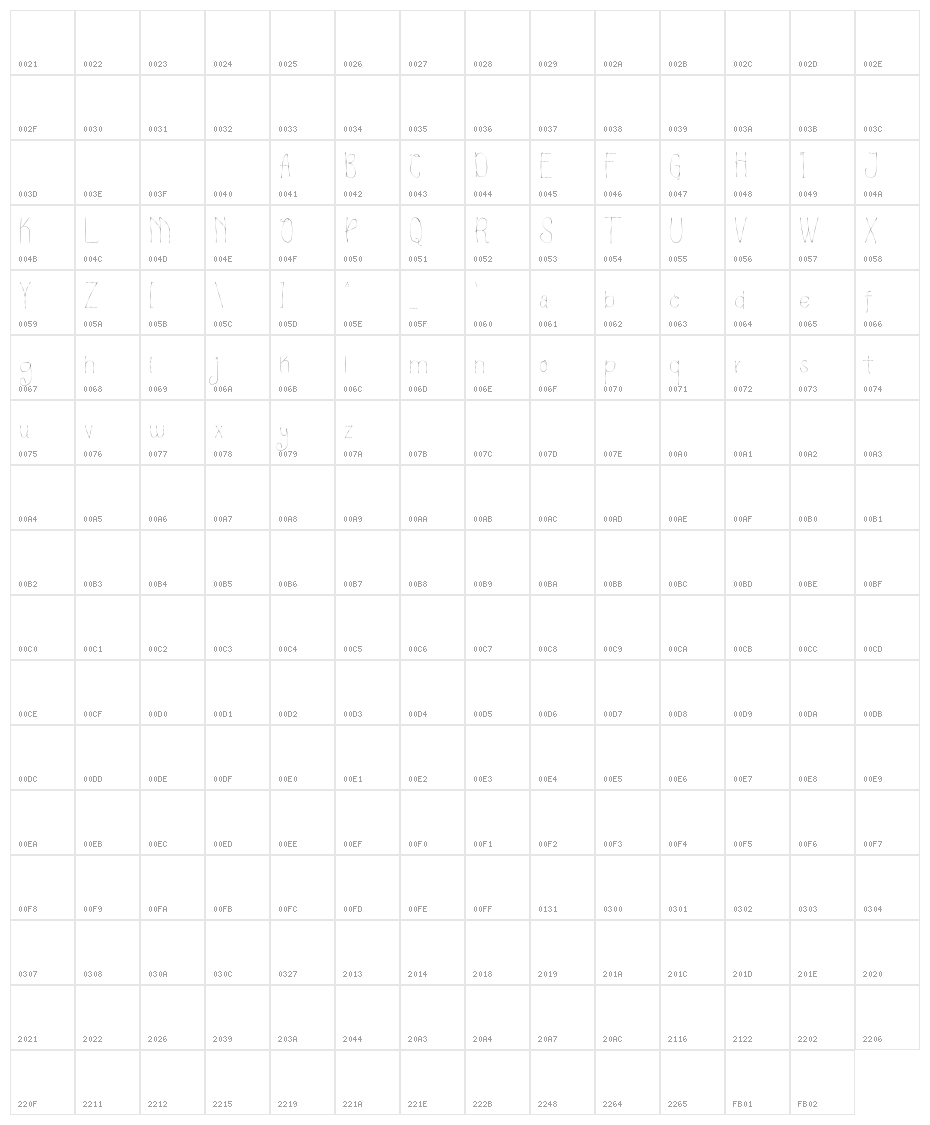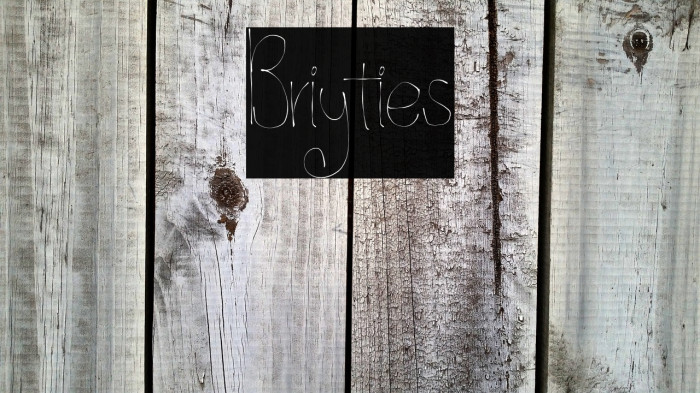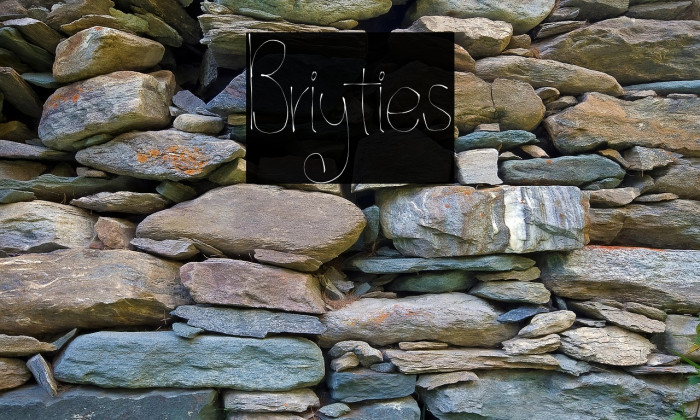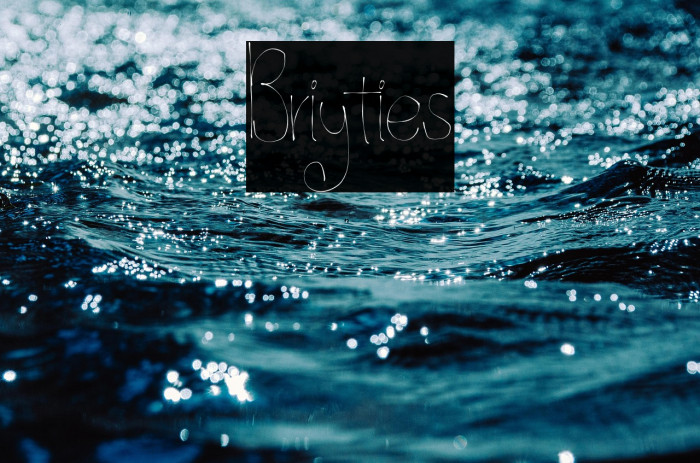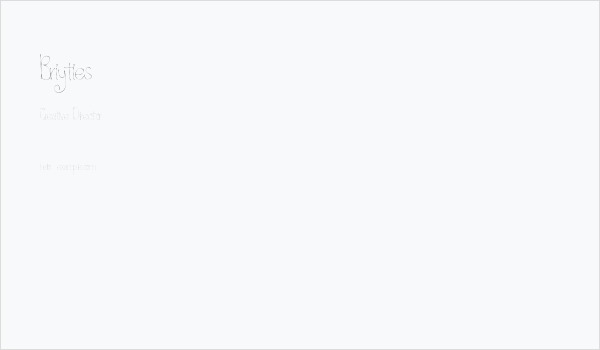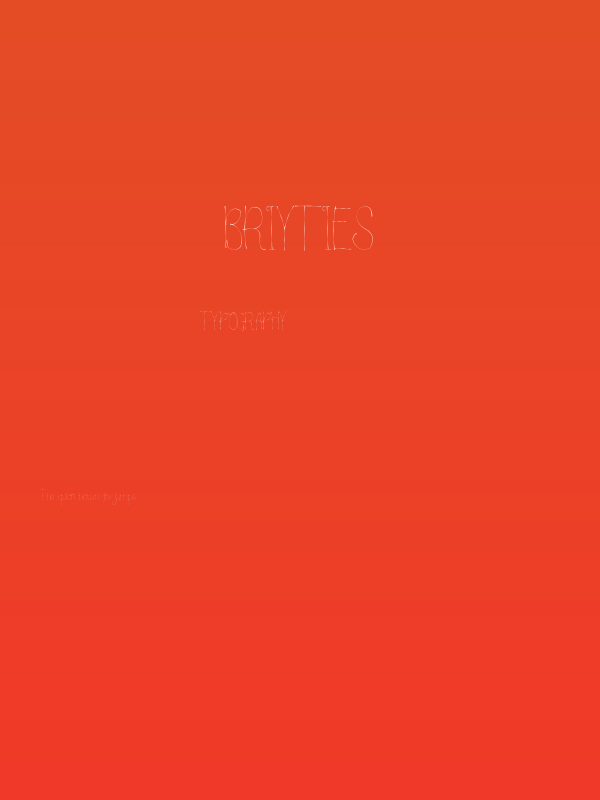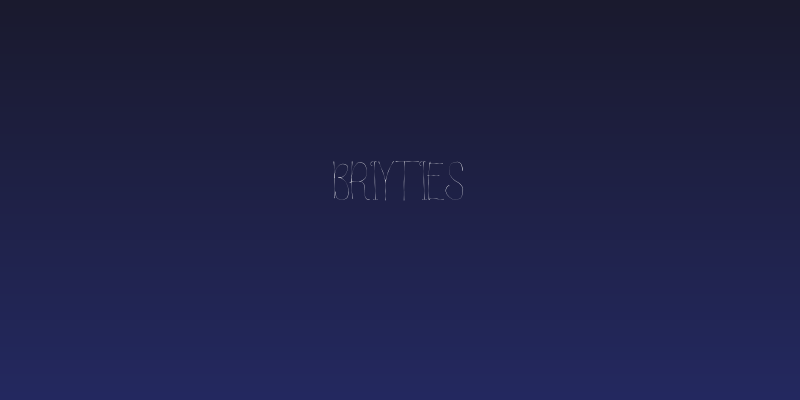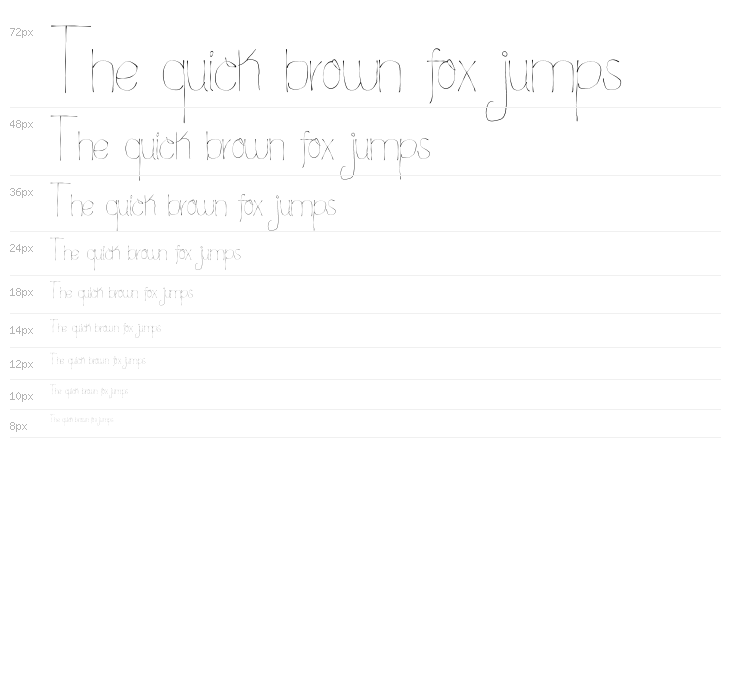
Briyties Font
Briyties Description
This font features a delicate and airy design with thin, elongated strokes that give it an elegant and sophisticated appearance. The characters are tall and narrow, with a slight whimsical touch, making it feel both modern and artistic. The uppercase letters maintain a consistent height, while the lowercase letters have a playful, slightly irregular baseline, adding to its charm. The overall look is clean and minimalistic, yet with a distinct personality that stands out. It's suitable for creative projects where a touch of elegance and uniqueness is desired.
| Width | Condensed |
| Use Case | Logos, Headlines, Artistic projects |
| Proposed Projects | Ideal for wedding invitations, fashion branding, artistic posters, and elegant packaging designs. |